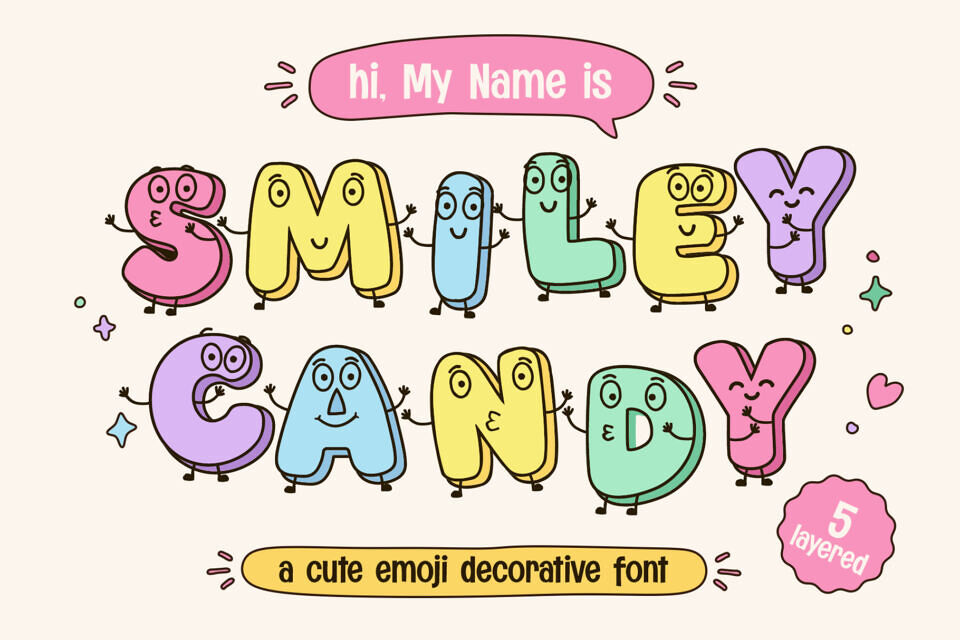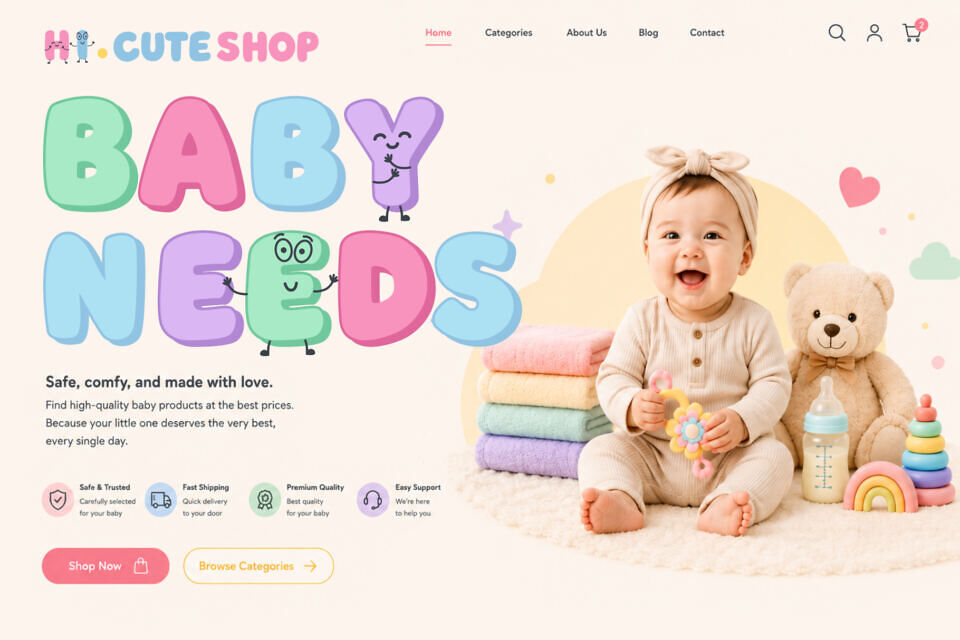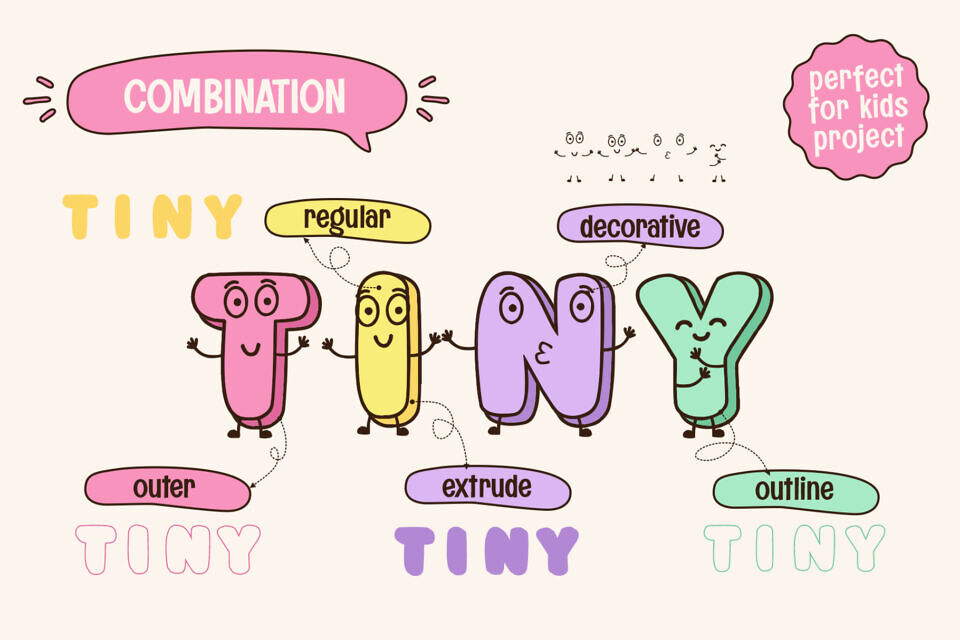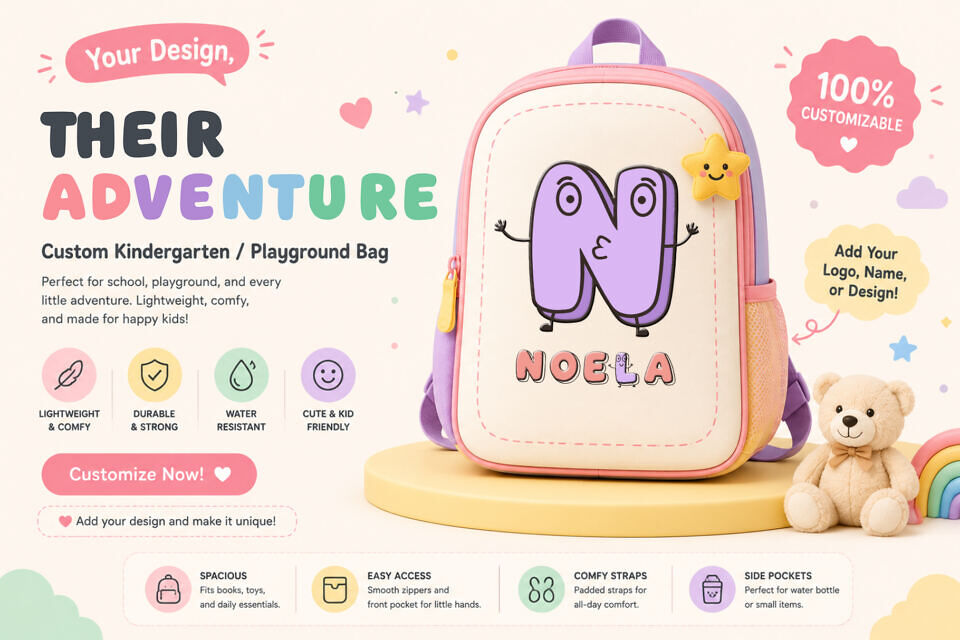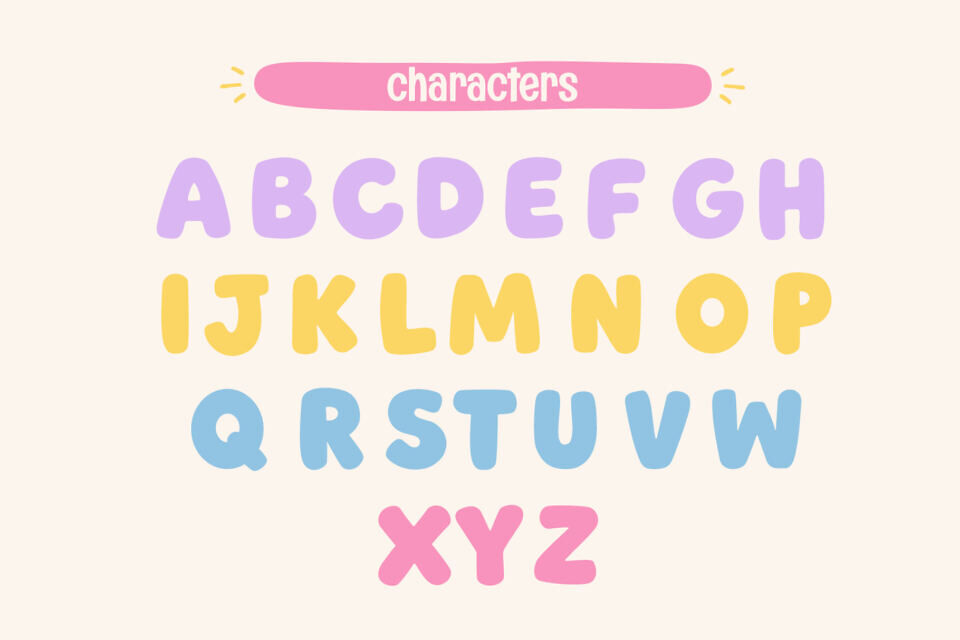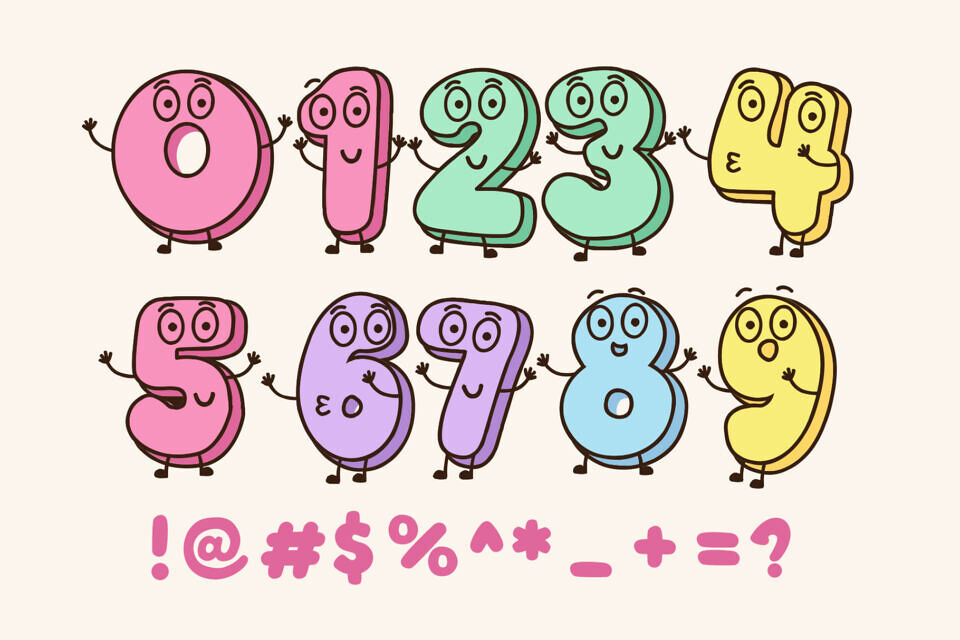
Experience visual delight with Smiley Candy, an enchantingly charming decorative display font designed to infuse joy, imagination, and playful zest into the world of typography. A vibrant blend of kawaii culture, animated artistry, emoji articulations, and sprightly doodle graphics, Smiley Candy marries audacious rounded shapes with decorative layers, resulting in a captivatingly fun and unforgettable visual identity.
It is the perfect font for projects across various genres such as Children’s literature, entertainment, social media, education, stickers, branding, toys, merchandise, posters, packaging, and various digital platforms. Smiley Candy’s jovial aesthetic makes for engaging and positive visual interaction.